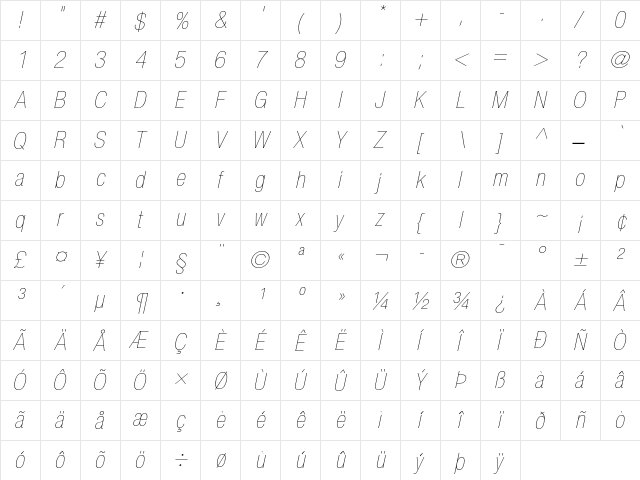
Helvetica Neue 27 Ultra Light Cond Oblique Font Preview
Design Context for Helvetica Neue Typeface
Helvetica Neue takes a measured approach to typography — its balanced proportions and neutral character make it a reliable workhorse for both digital and print work. The slanted form adds forward momentum and visual energy. Its slender proportions lend an understated elegance to any composition. Its narrow stance lets it pack a punch even in space-constrained designs.
Pro Tip: Try Helvetica Neue for annotation and caption copy alongside an upright companion — the contrast in angle creates a dynamic but ordered typographic system.